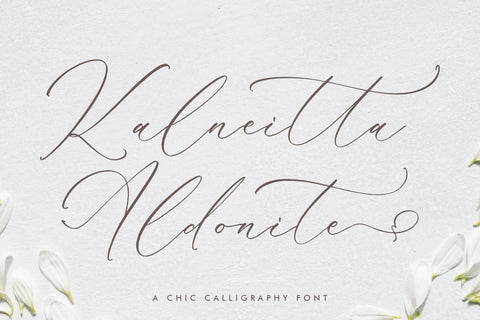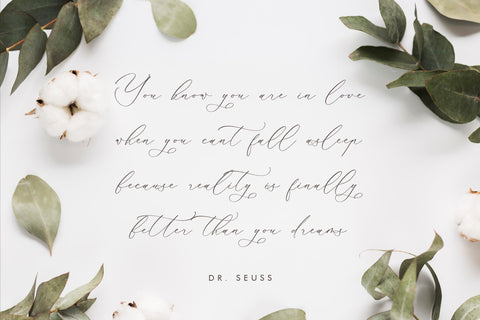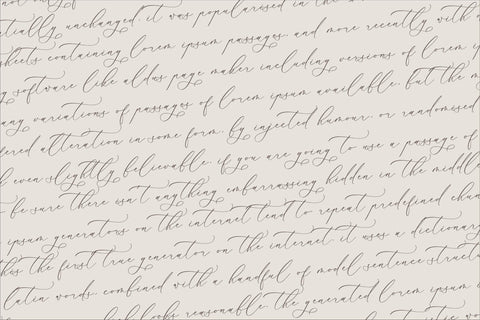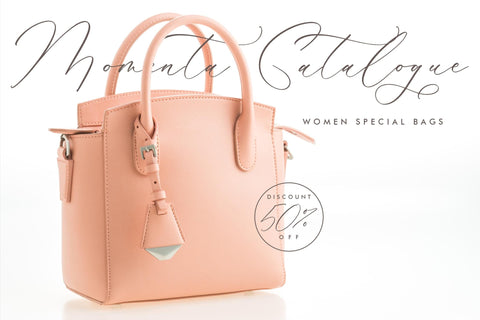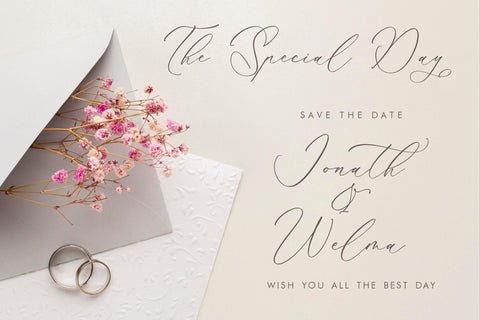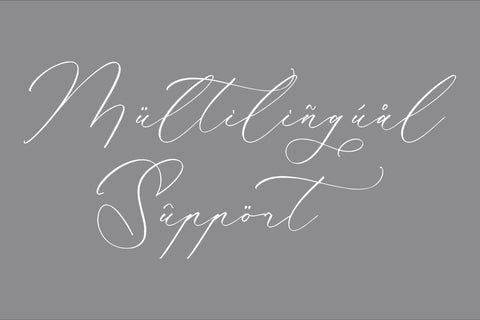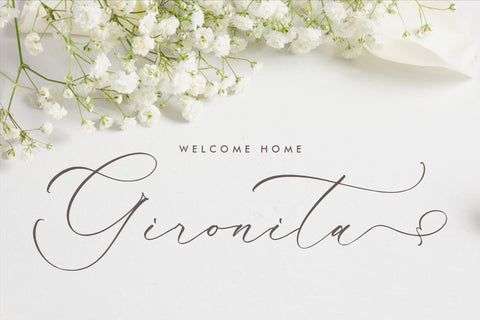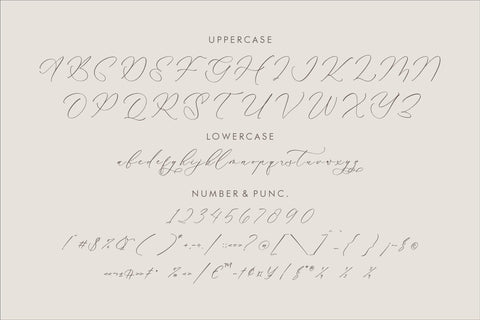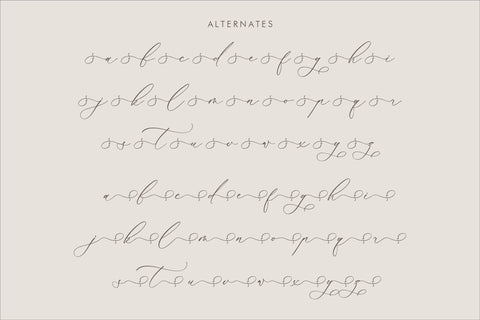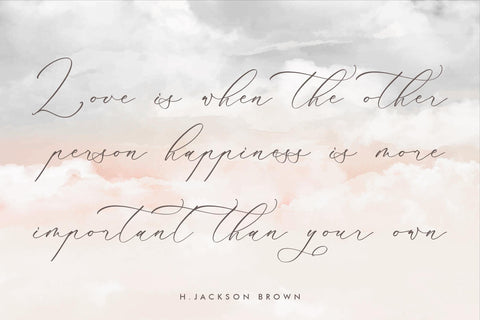
Kalneitta Aldonite - Chic Calligraphy Font
Proudly present Kalneitta Aldonite - Chic Calligraphy Font , created by Storytype,
A luxury script that has own unique style & modern look.